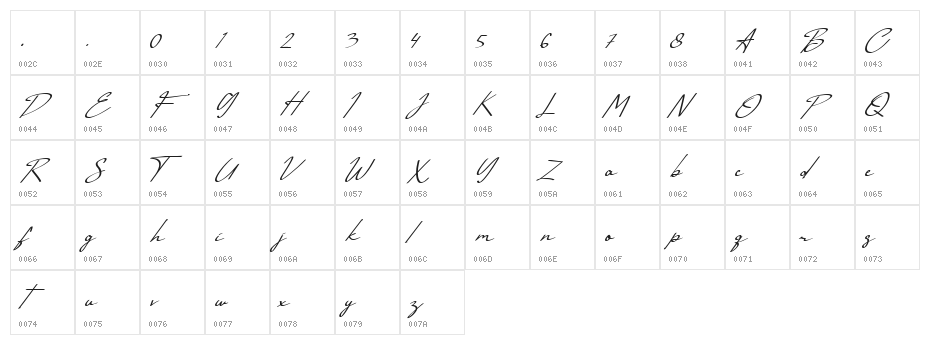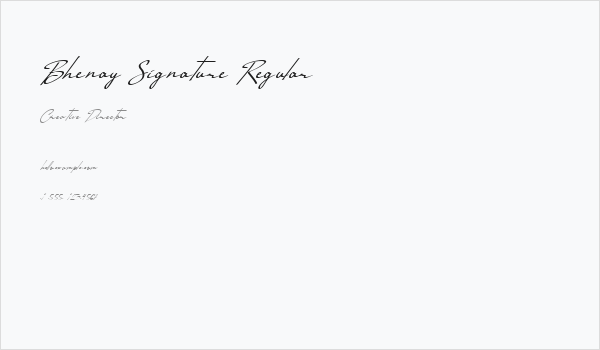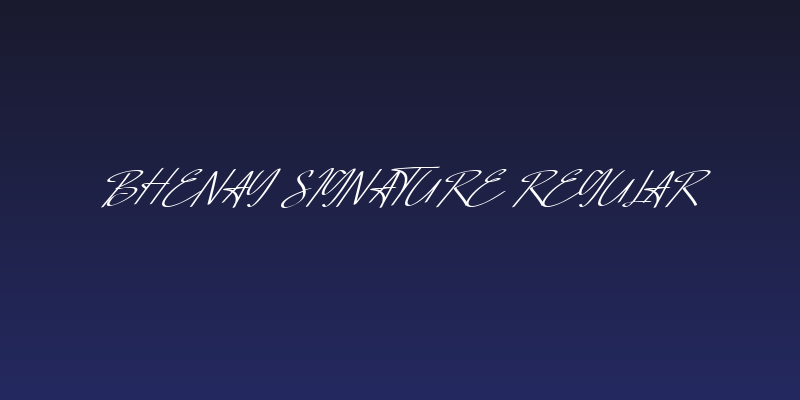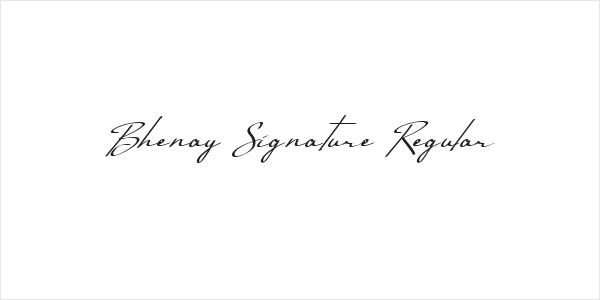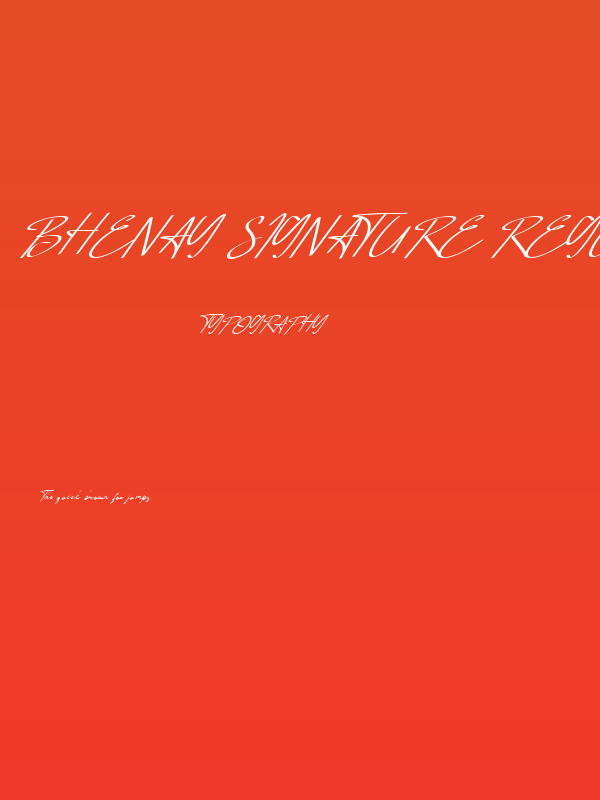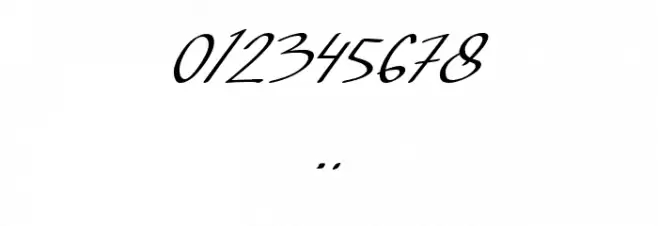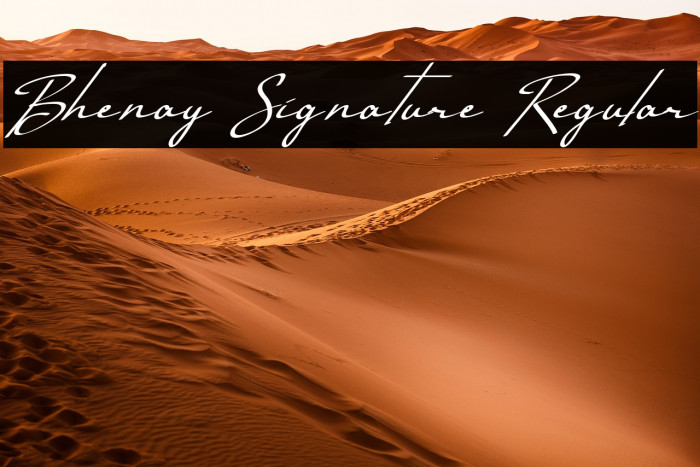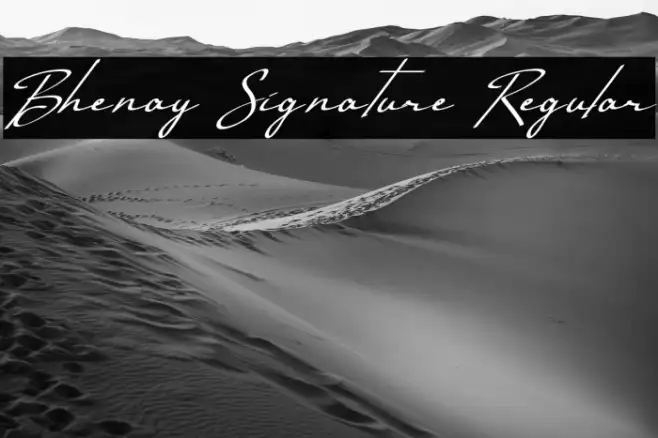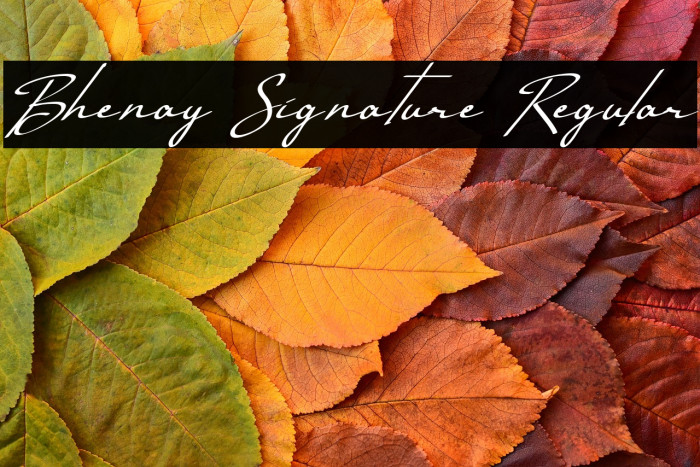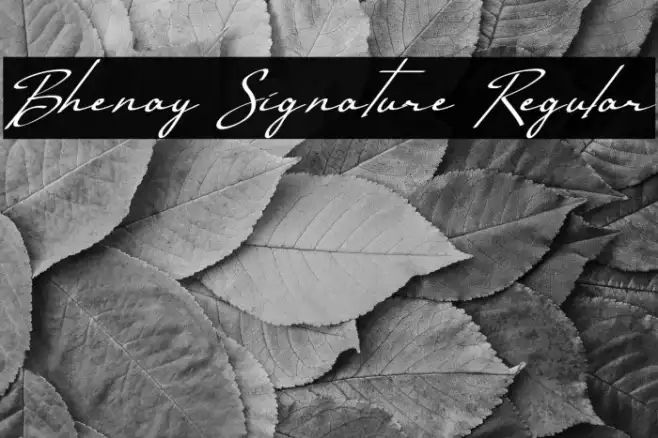
Bhenay Signature Regular Font
Bhenay Signature Regular Description
This font exudes elegance and sophistication with its fluid, cursive style. The characters are gracefully connected, mimicking the natural flow of handwriting. The uppercase letters are bold and prominent, while the lowercase letters maintain a delicate and refined appearance. The numerals are consistent with the overall script style, offering a cohesive look. The special characters are seamlessly integrated, maintaining the font's elegant aesthetic. This font is perfect for adding a personal touch to any project.
| Proposed Projects | Ideal for wedding invitations, personal branding, elegant logos, and greeting cards. |